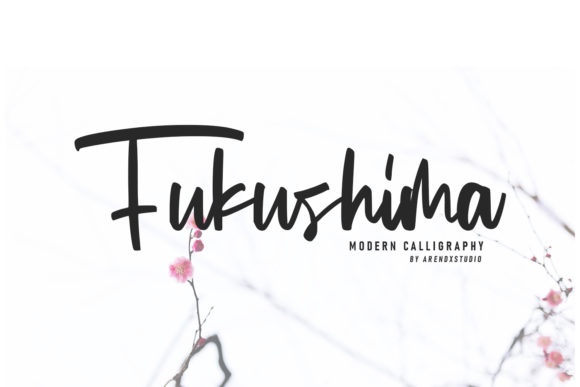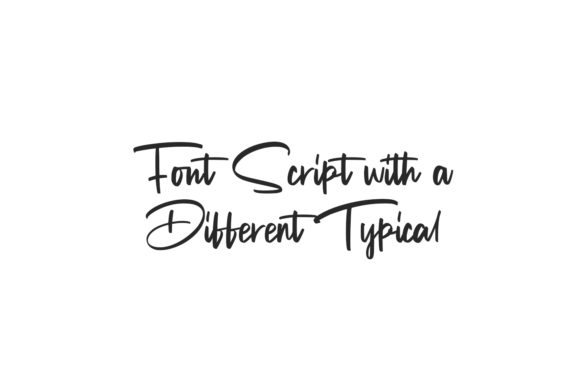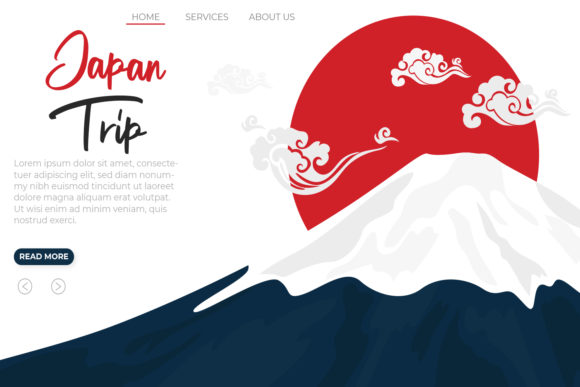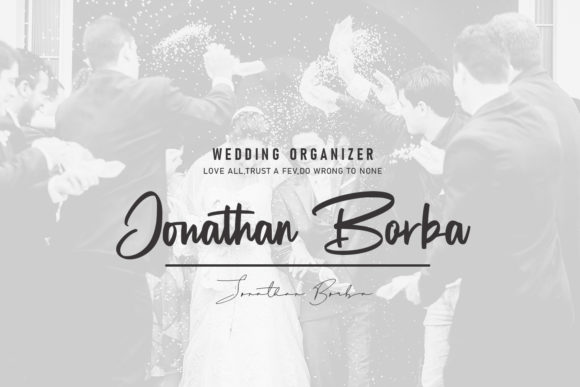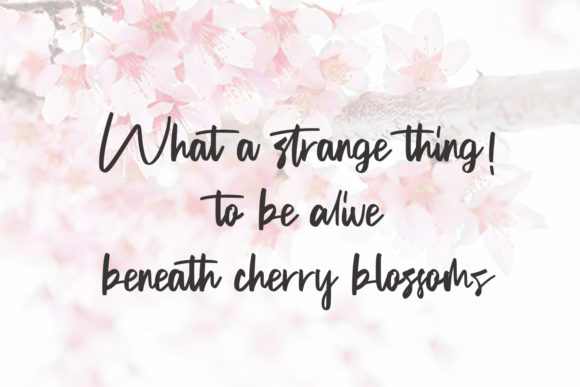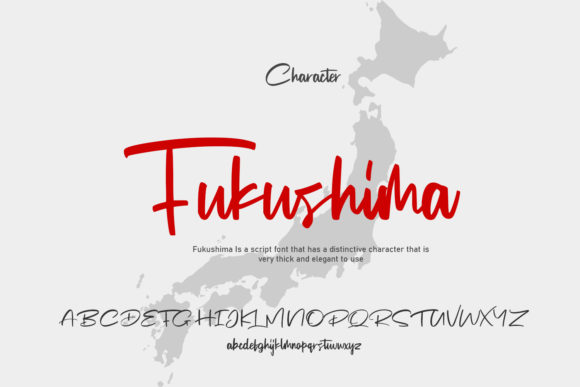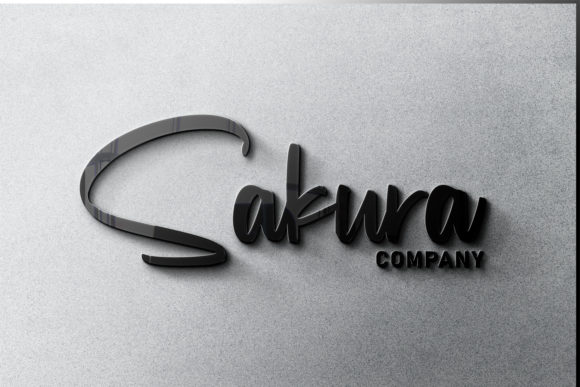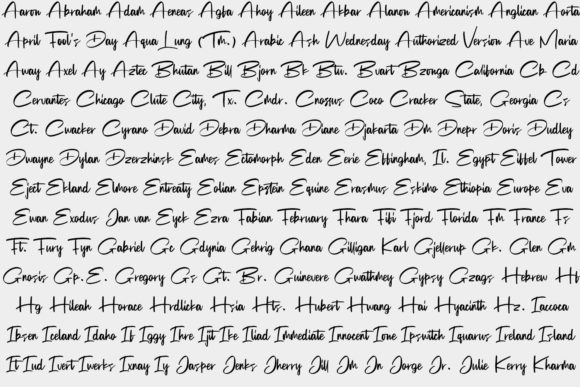
Fukushima Font
About Fukushima Font
Fukushima is an incredibly unique and timeless handwritten font, designed with the help of a lovely brush pen. Fall in love with its incredibly versatile style and use it to create gorgeous wedding invitations, beautiful stationary art, eye-catching social media posts, and much more!